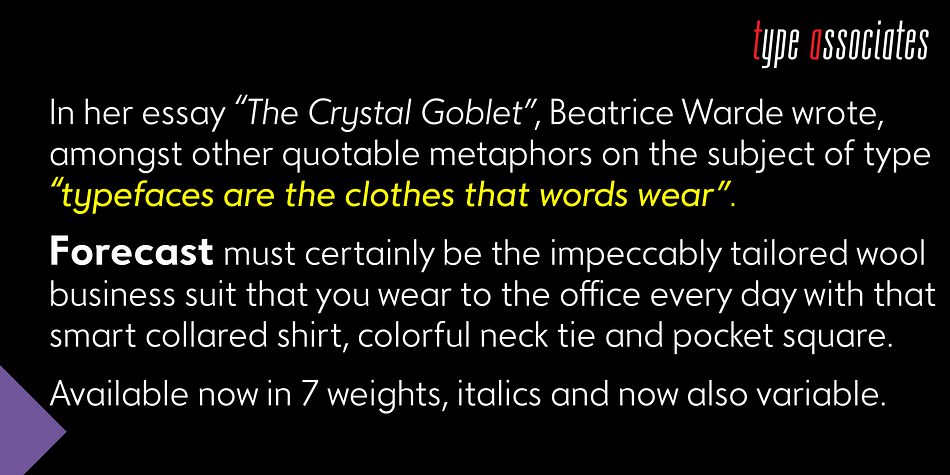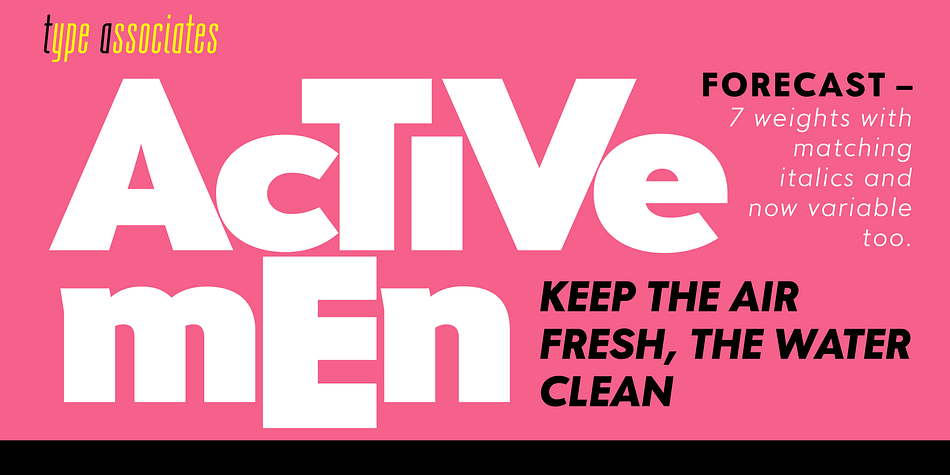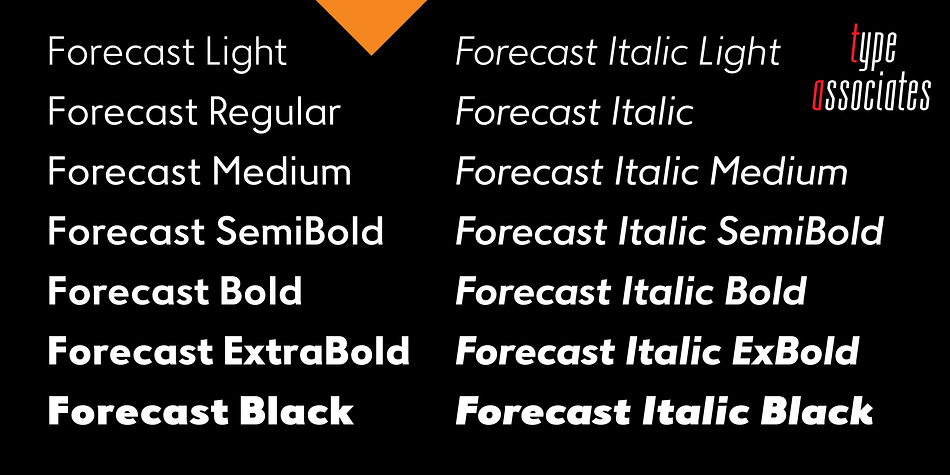
Forecast
Designed by Russell Bean, Forecast is a sans serif font family. This typeface has fourteen styles and was published by Type Associates.
Forecast takes cues from past geometrics notably Futura and Avenir. Ideal for multi-purpose use, text, display, the web.
The objective of this typeface is to provide a practical, swiss-army-knife, use-everywhere design where readability is paramount.
Available in 7 weights with italics, all kerned to perfection. Each font has 395 glyphs and supports 90 languages.